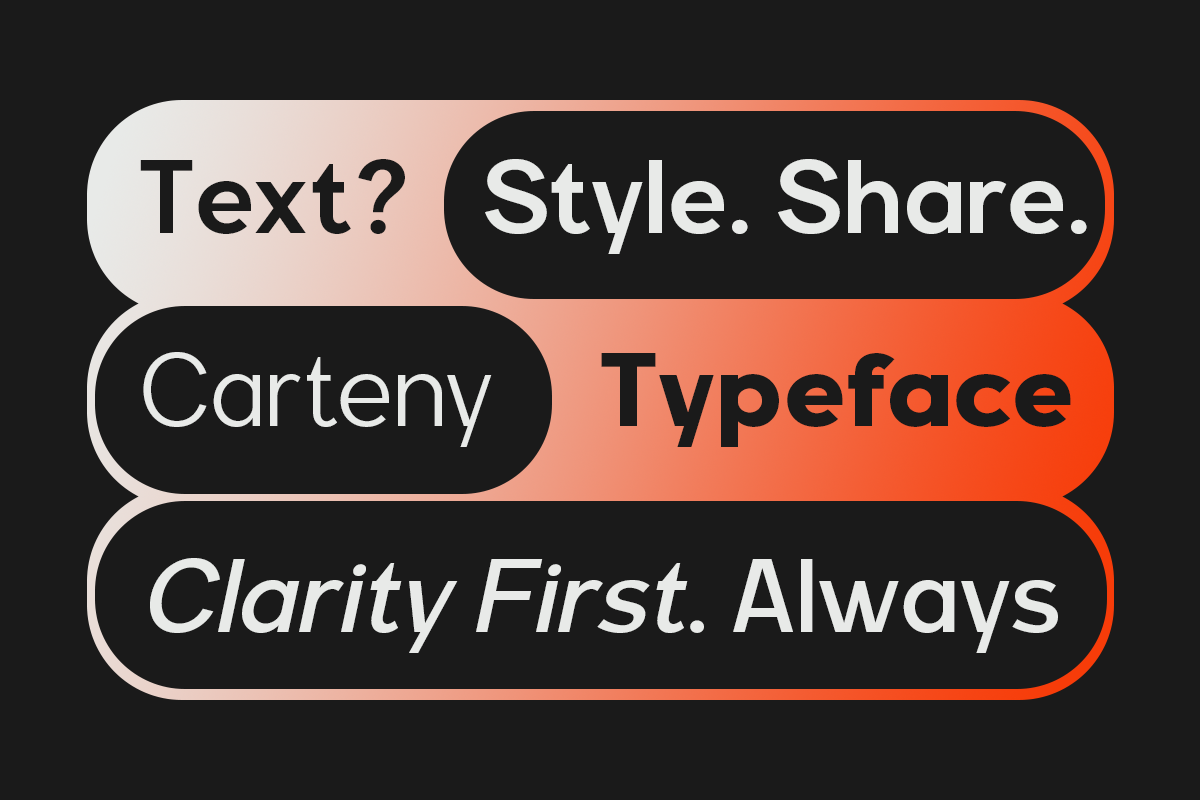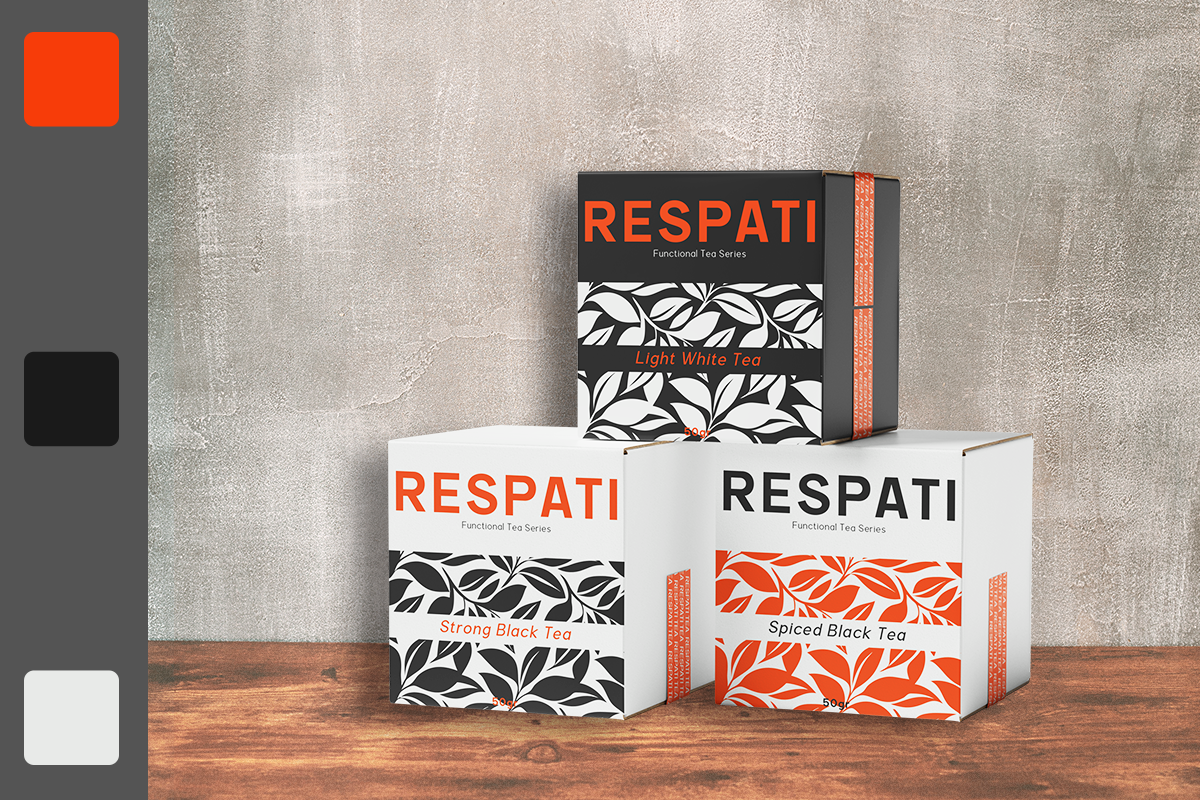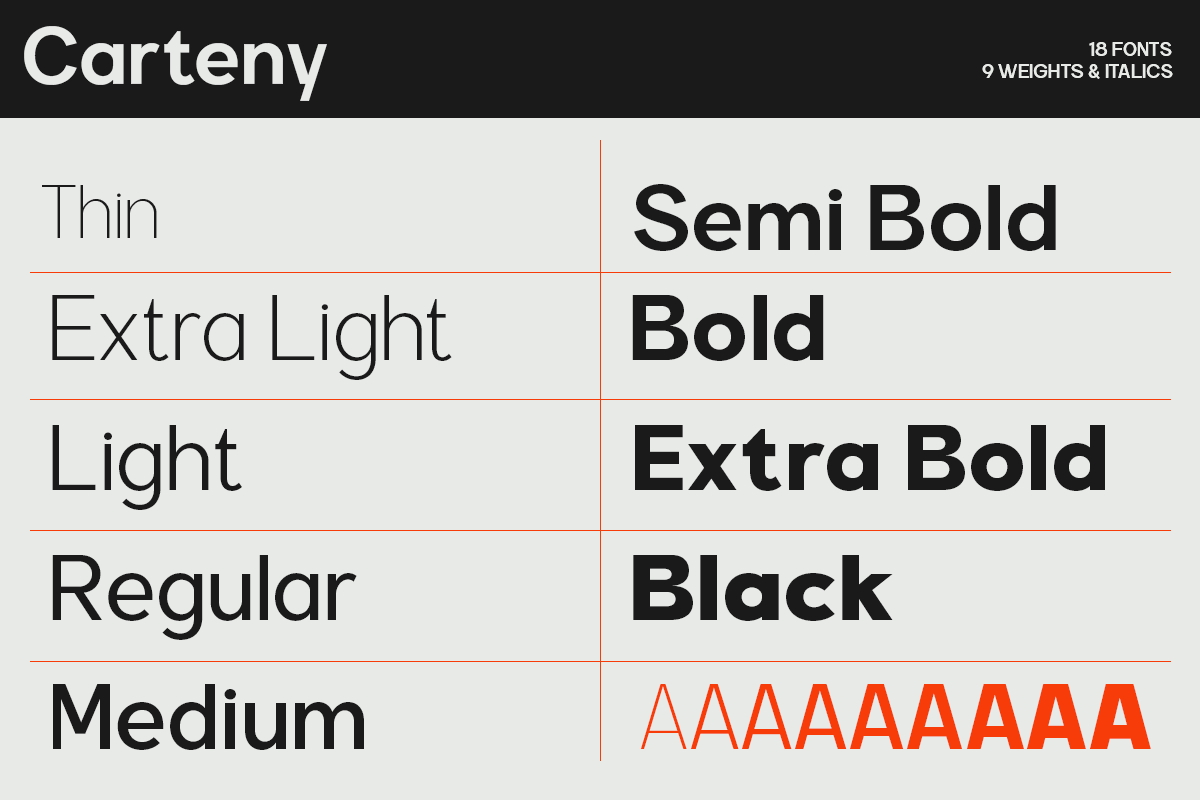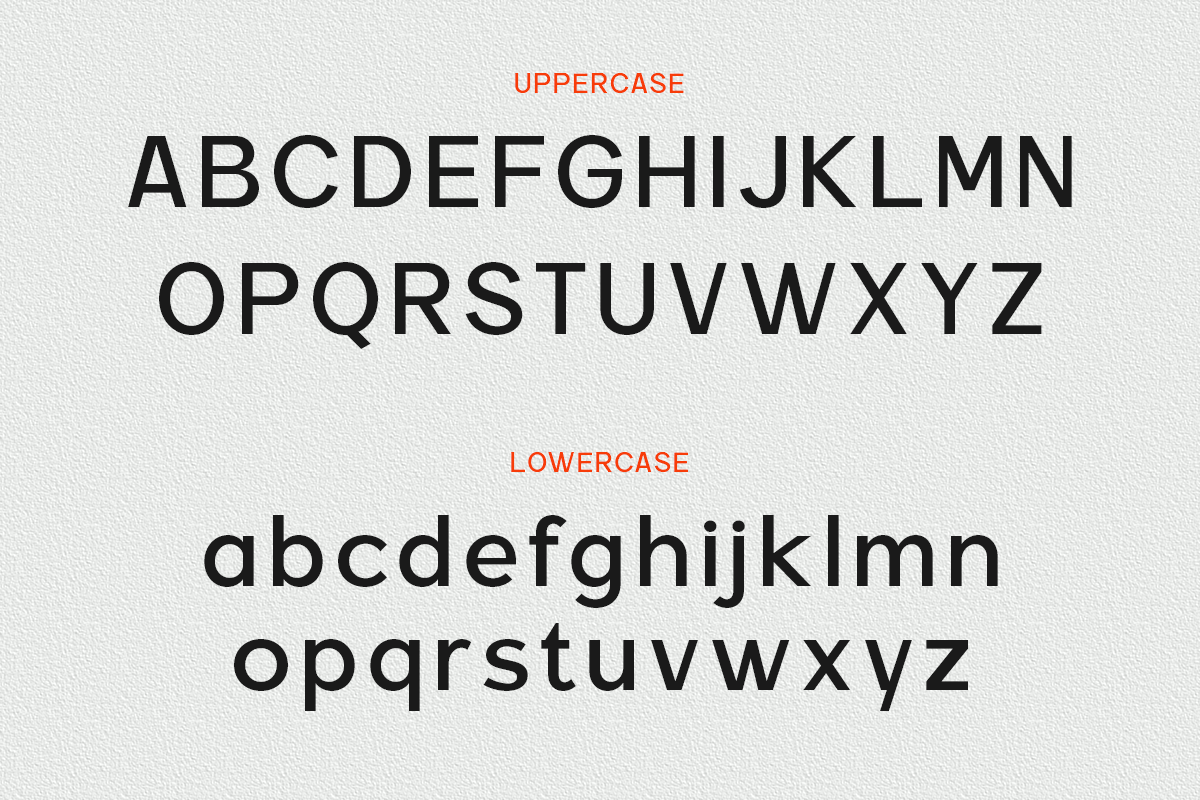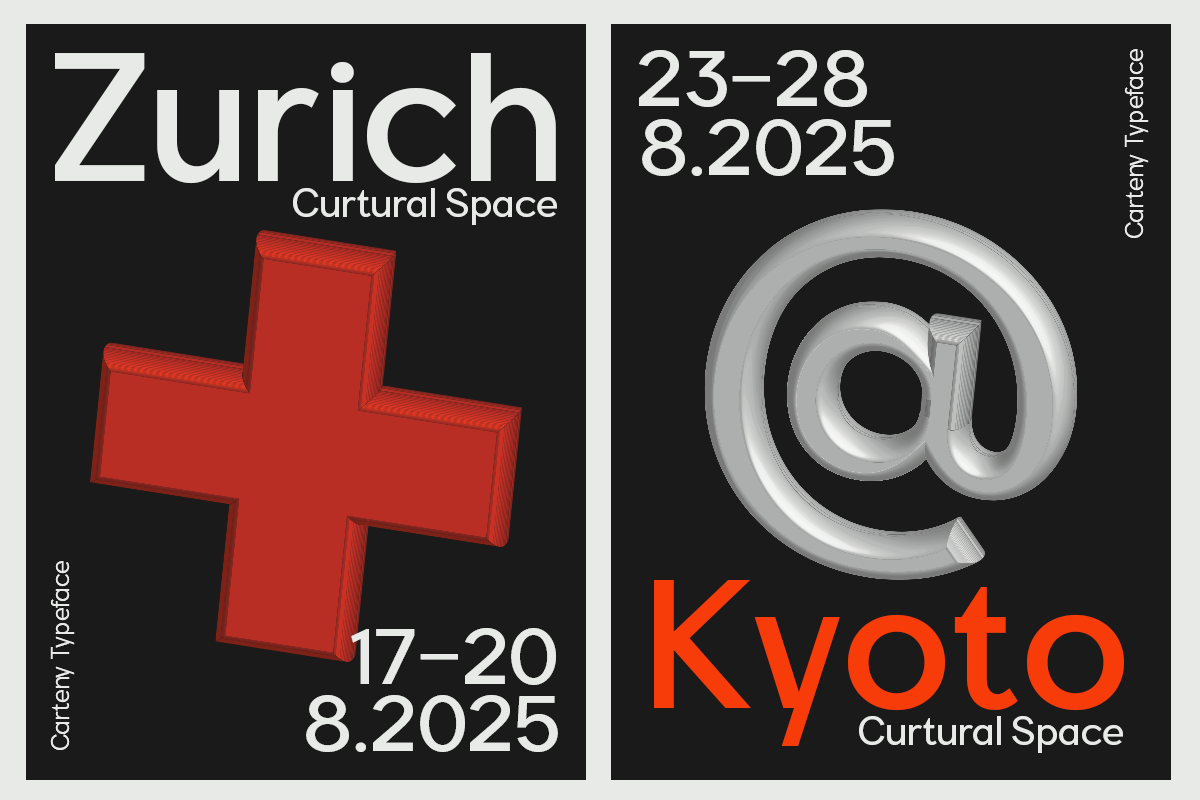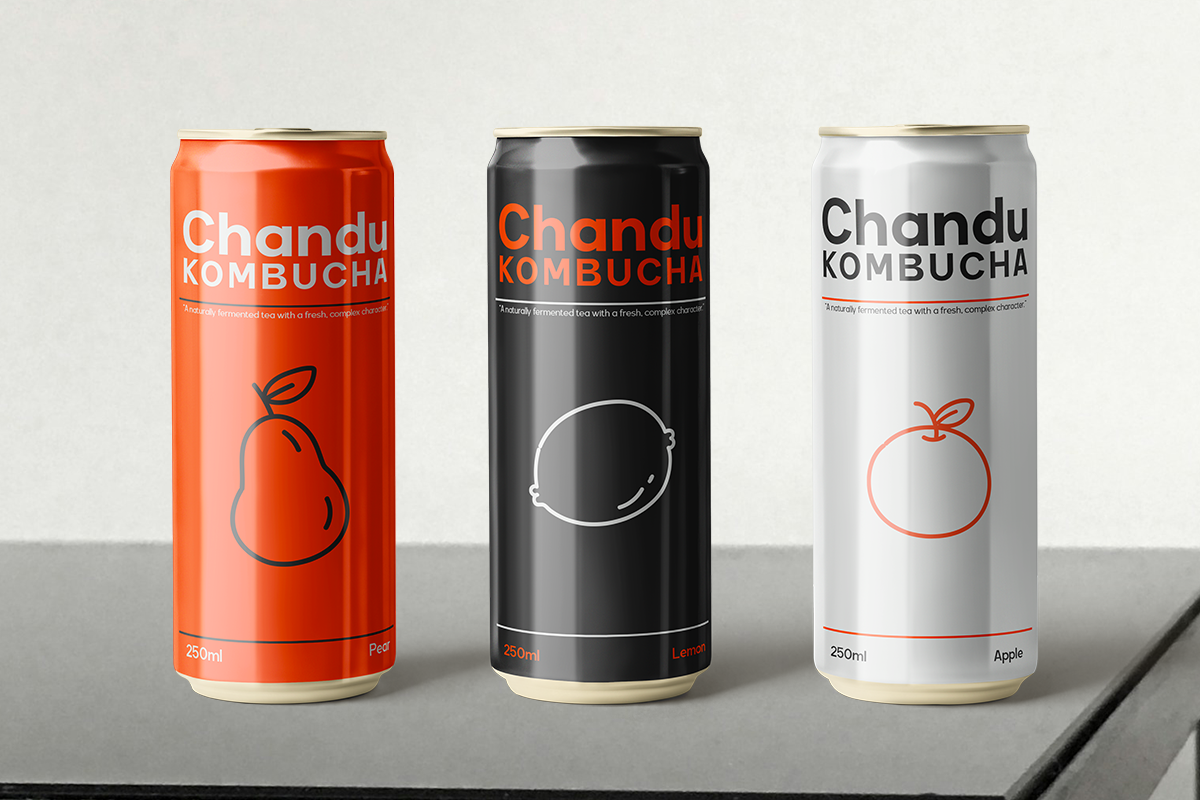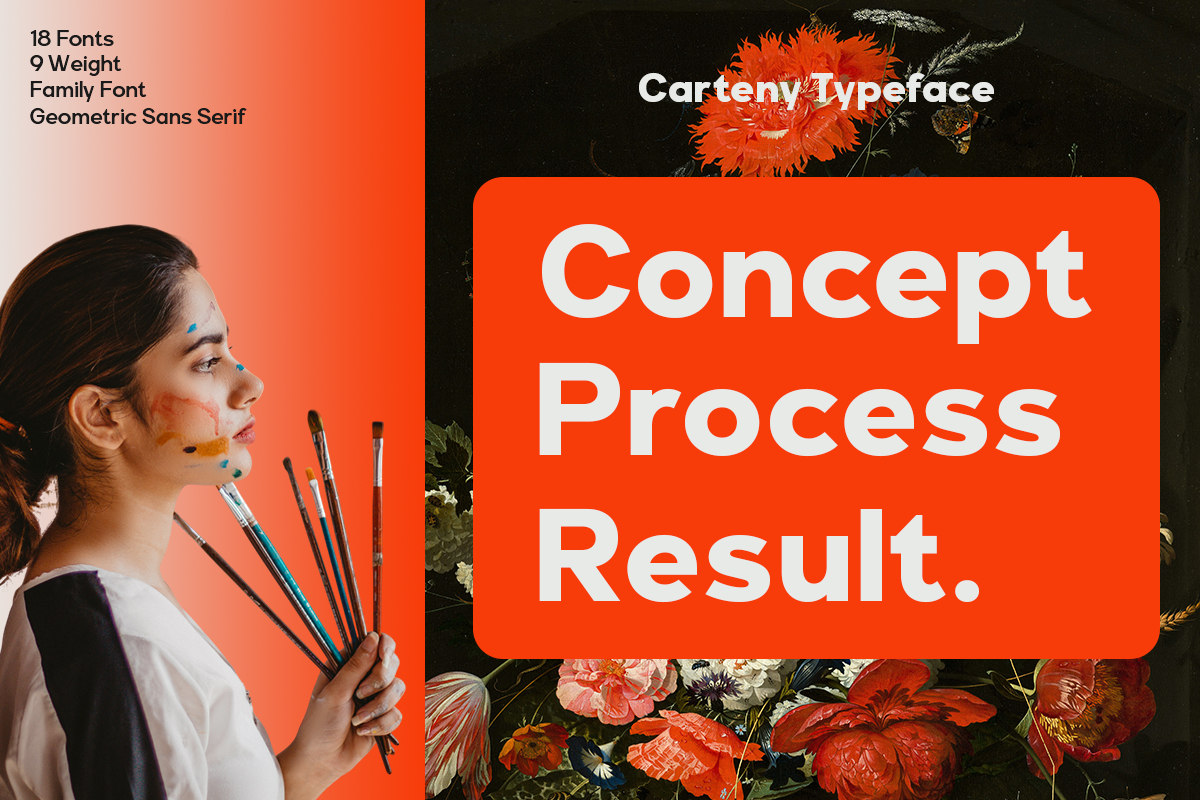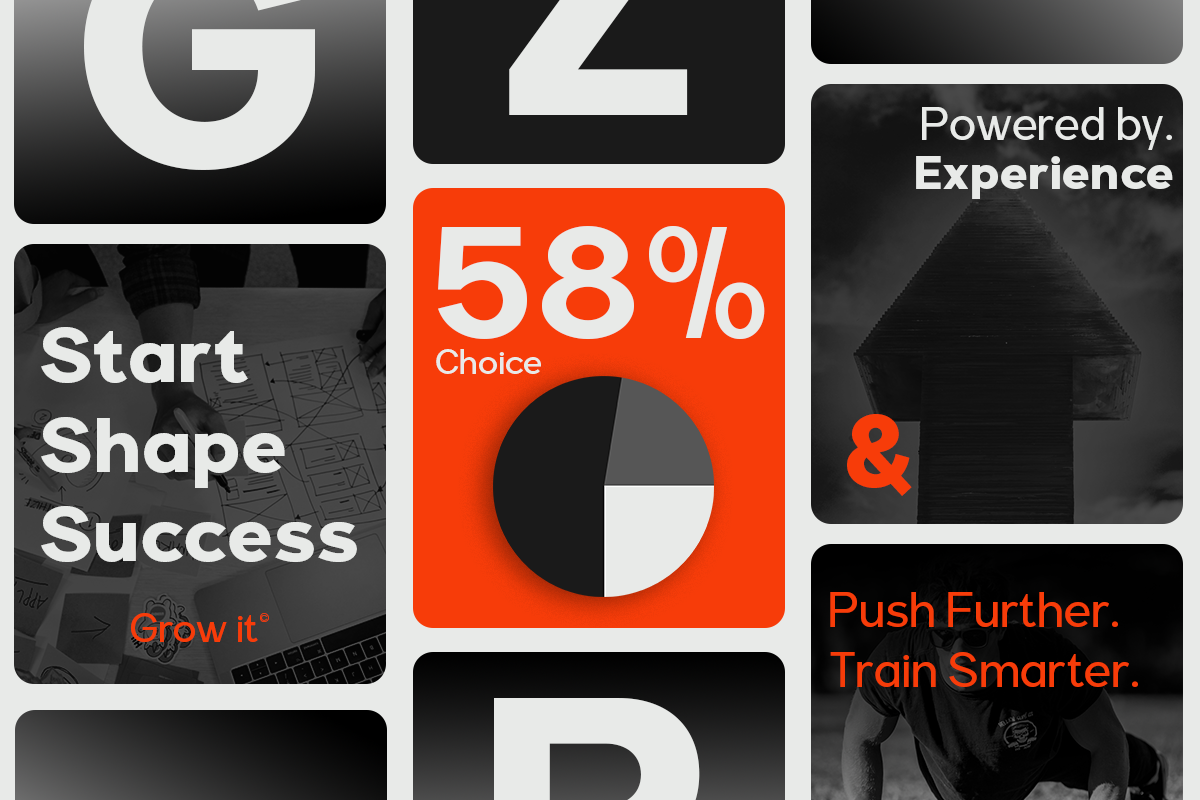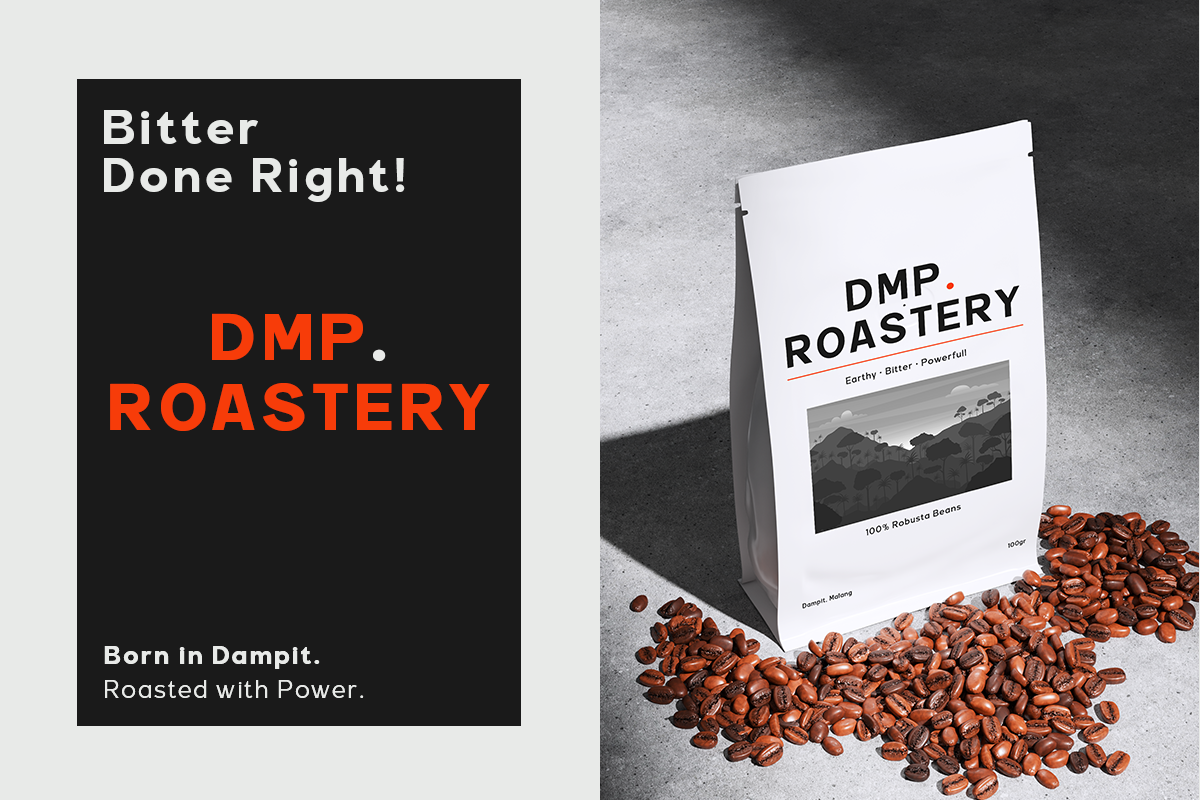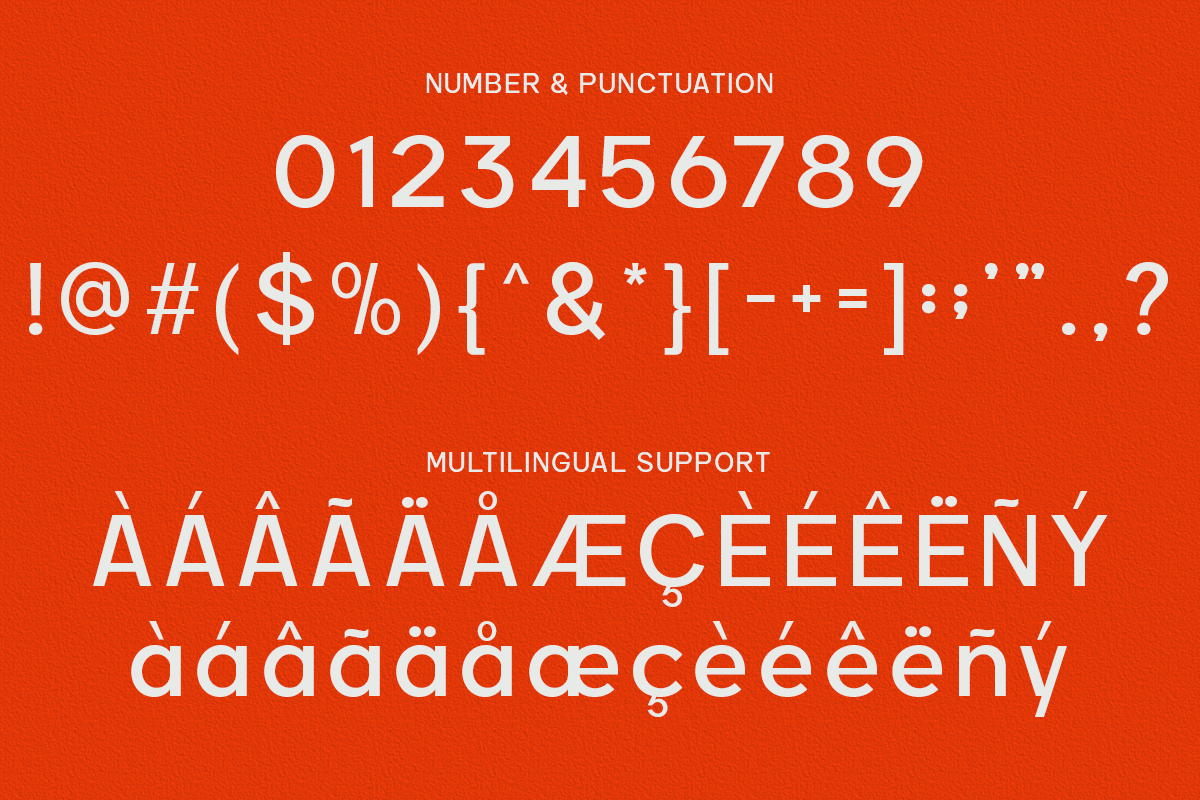
Carteny - Geometric Sans Family
Carteny is a modern geometric sans serif font family designed to deliver clarity, balance, and contemporary elegance. Built on clean geometry and precise proportions, this typeface offers a sleek visual rhythm that feels professional, versatile, and timeless—perfect for modern design systems that demand both beauty and performance.
Created for branding designers, creative studios, startups, and marketing teams, Carteny provides a powerful typographic foundation for a wide range of visual projects. From brand identity, logo design, UI/UX, websites, and mobile apps to editorial layouts, advertising campaigns, social media graphics, packaging, and corporate communication, this font family ensures consistency, readability, and refined visual impact across every platform.
With 18 font styles, carefully crafted weights, and harmonious spacing, Carteny gives designers full creative flexibility for building structured layouts, strong hierarchies, and polished compositions. Whether used for bold headlines, functional body text, or elegant interface typography, Carteny delivers a professional, modern, and highly adaptable typographic solution.